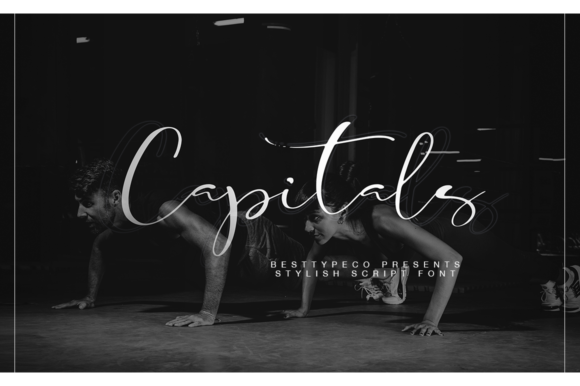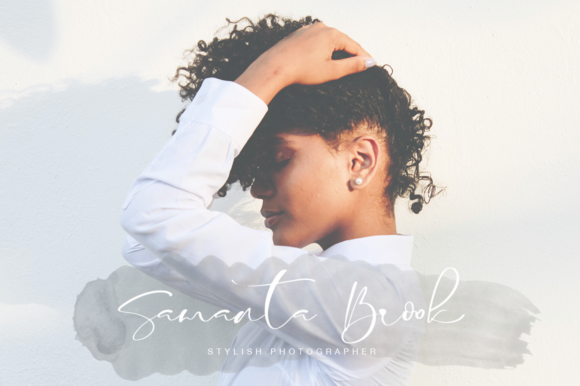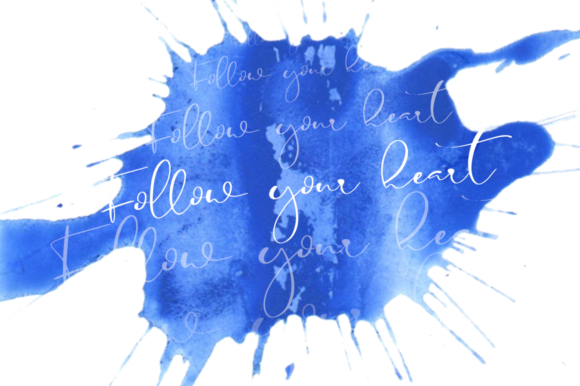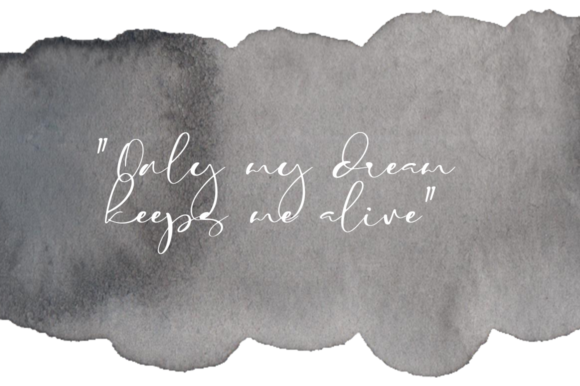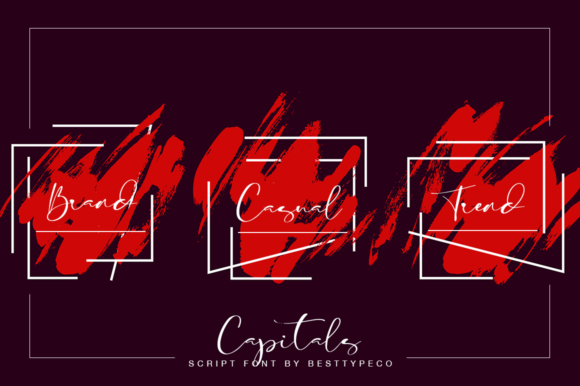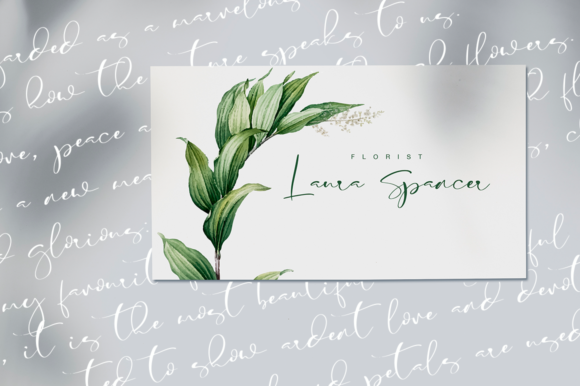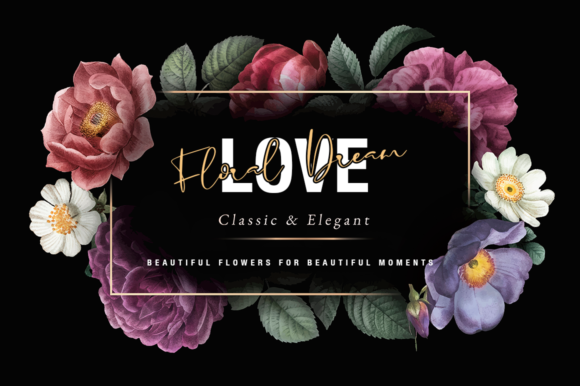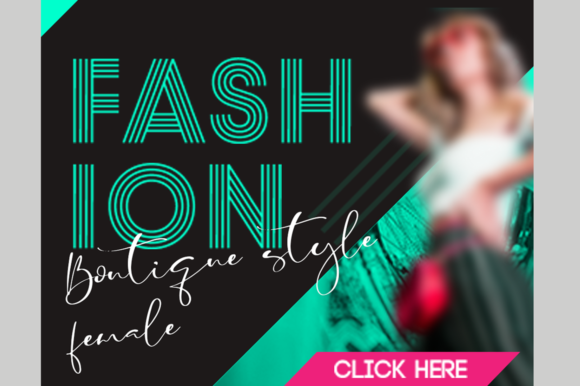
Capitals Font
About Capitals Font
Capitals is a beautiful and fresh handwritten font that will effortlessly elevate new design projects with its contemporary charm.